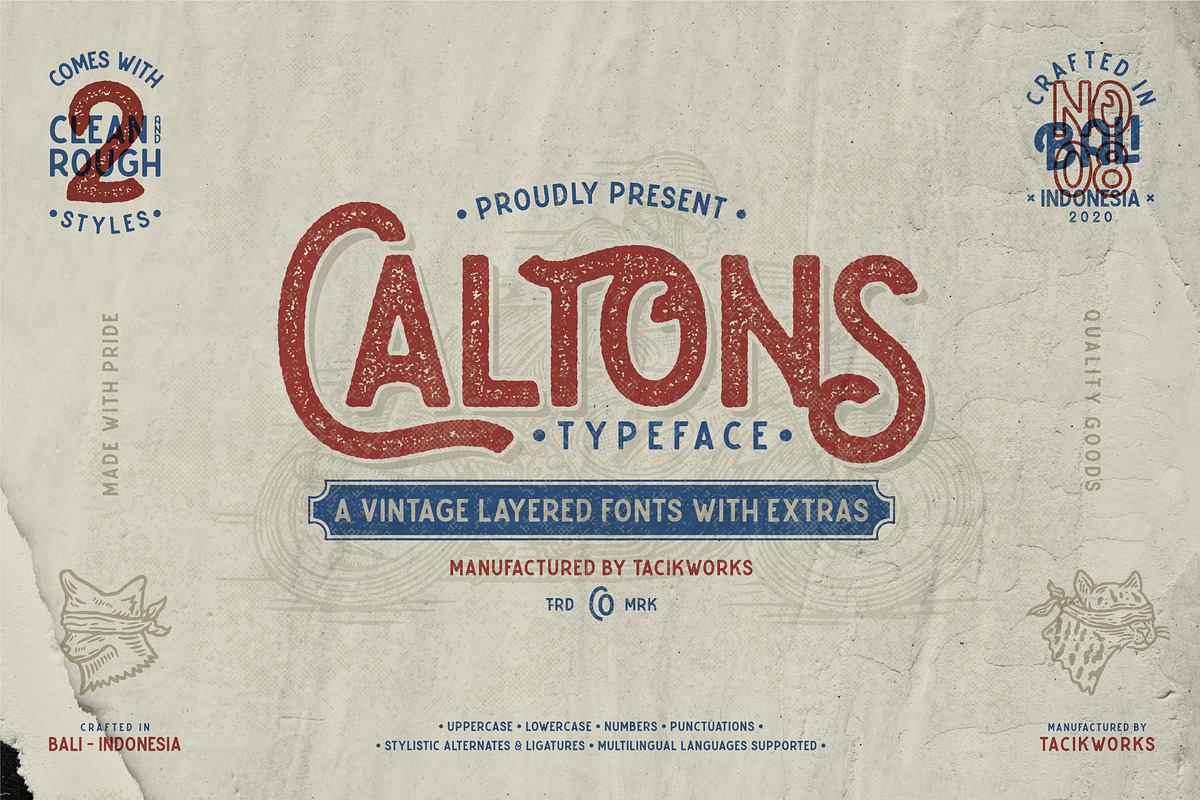
The Caltons Typeface With Extra Bonus Free Download is a modern and stylish font that combines versatility with a sleek, professional design. Perfect for logos, branding, social media graphics, and print materials, this font provides a clean, sophisticated look. The extra bonus included in this bundle offers additional design elements to enhance your projects. Please note, for commercial use, a license must be purchased. You can download it for free for testing purposes.
With its elegant and timeless design, the Caltons Typeface is ideal for a wide variety of creative projects. Whether you're designing for a modern brand, creating unique marketing materials, or working on custom invitations, this typeface will give your designs a polished and professional appearance. The bonus extras further expand the creative possibilities, allowing for even more customization in your work.